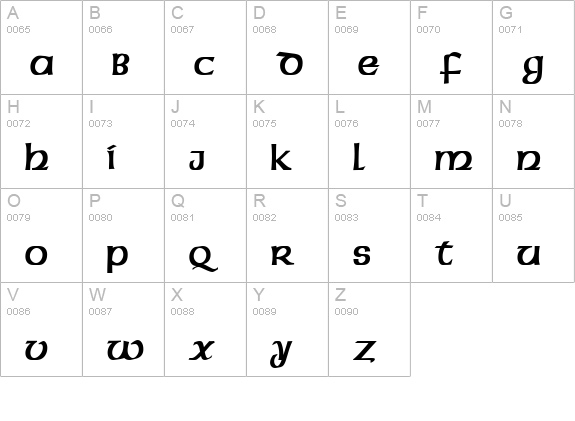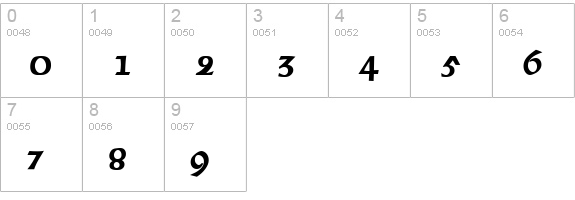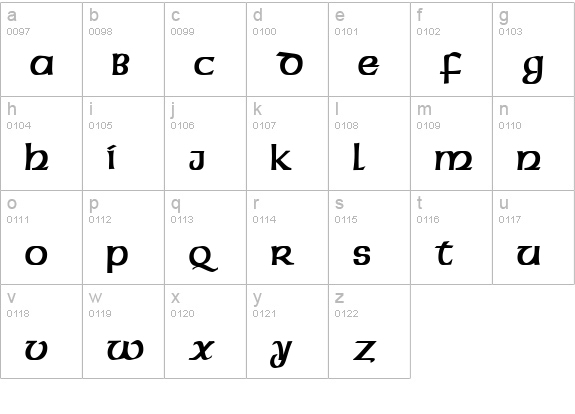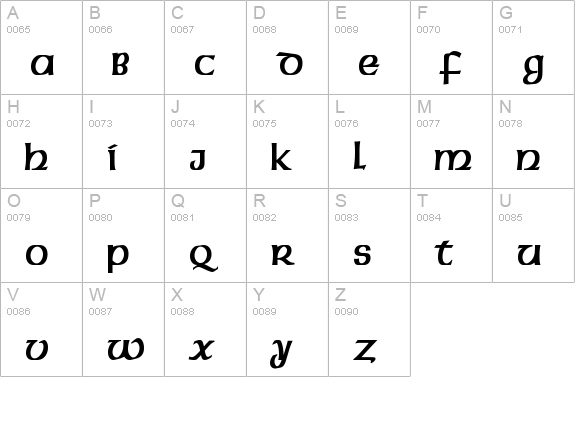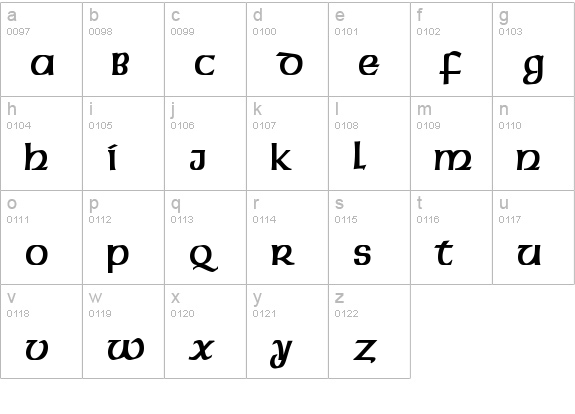
Celtic-Condensed Bold Font Details
Celtic-Condensed Bold is a strong, high-contrast, condensed-width variant in the Celtic typeface family \xE2\x80\x94 well suited to headlines, attention-grabbing titles, and strong calls-to-action.
Celtic-Condensed Bold font is a striking and powerful typeface that exudes a sense of strength and elegance. Its condensed style makes it perfect for headlines, titles, and other design projects where space is limited but impact is essential. The bold weight adds a touch of authority and presence to any text, making it a versatile choice for both print and digital media. What sets Celtic-Condensed Bold font apart is its unique Celtic-inspired letterforms, featuring intricate details and a hint of ancient mystique. This font is sure to make a bold statement and leave a lasting impression on your audience. Best of all, Celtic-Condensed Bold font is free to download at FontsMarket.com. So, whether you're a designer looking to add a touch of Celtic charm to your projects or a business owner in need of a standout font for your branding, this font is the perfect choice. Download it today and unleash the power of Celtic-Condensed Bold in your designs.